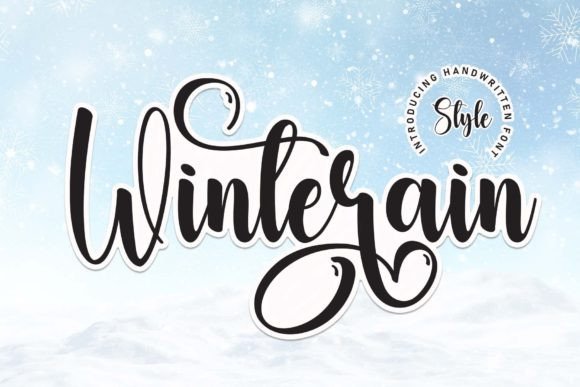
Behold the Winterain Font, a Stunning New Script Font Crafted to Make Your Headlines Shine!
Experience the enchanting charm of Winterain, a captivating script font that will add a touch of elegance and playfulness to your designs. Its graceful curves and flowing strokes evoke a sense of warmth and approachability, making it perfect for creating headlines that exude personality and warmth. Unleash your creativity and let your words dance across the page in a style that's both captivating and unforgettable.
Designed with meticulous attention to detail, the Winterain Font boasts a versatile range of characters, including stylish uppercase and lowercase letters, charming punctuation marks, and a treasure trove of ligatures. Whether you're creating website headers, marketing materials, social media graphics, or branding elements, Winterain will effortlessly enhance your message and capture the hearts of your audience.
Step into a world of endless possibilities as you explore the limitless applications of the Winterain Font. Use it to craft mesmerizing logos that leave a lasting impression, design eye-catching posters that command attention, or create wedding invitations that radiate romance and joy. The Winterain Font is your versatile companion, ready to elevate your designs to new heights.